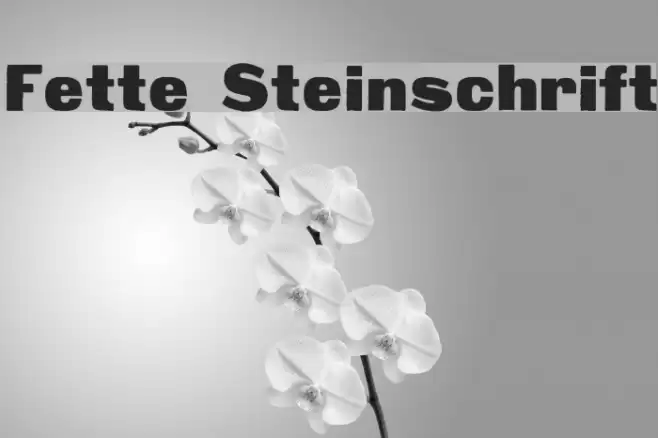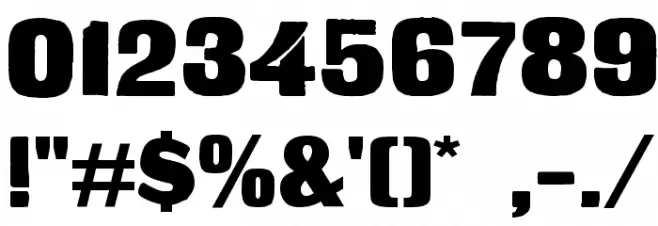
Fette Steinschrift Font
Fette Steinschrift Description
This bold and impactful font features thick, heavy strokes that convey strength and authority. The characters are robust with minimal contrast, maintaining a uniform thickness throughout. The uppercase letters are particularly striking, with a strong presence that demands attention. The lowercase letters retain the same boldness, ensuring consistency across text. The numerals and special characters are equally bold, making them ideal for situations where clarity and emphasis are required. This font's design is straightforward yet powerful, making it suitable for a variety of applications where a strong visual impact is desired.
A bold, heavy font with uniform thickness and strong visual impact from Distorted Eroded fonts.
- Proposed Projects: Ideal for posters, headlines, logos, and branding materials that require a bold statement.
- Overall Style: Classic